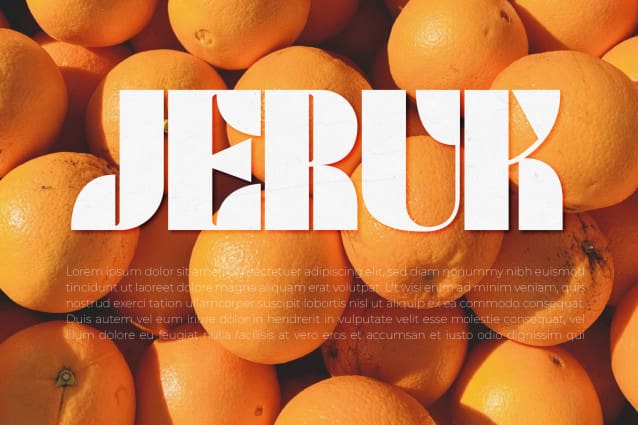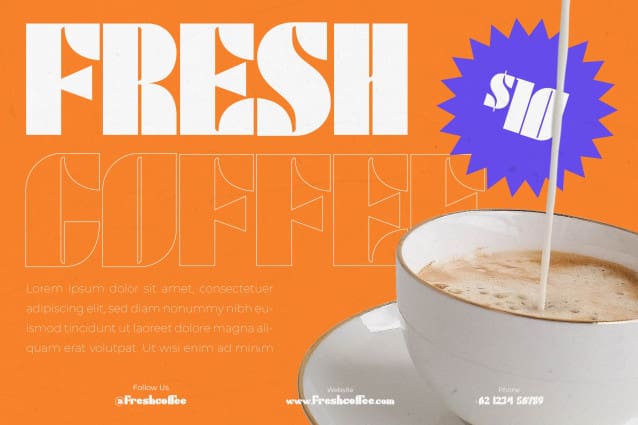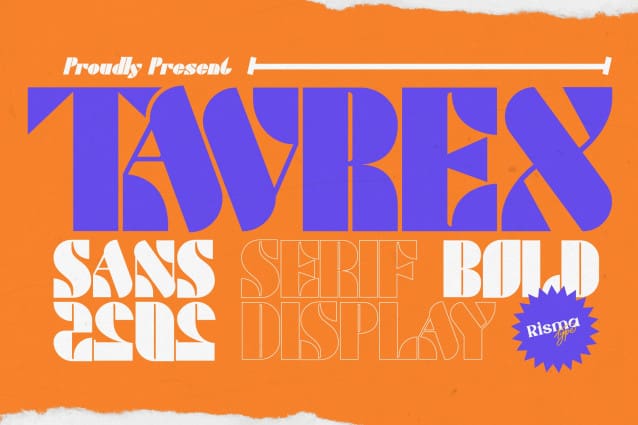
Tavrex Display Font
Tavrex Display Font is a sans serif bold display font designed to convey confidence and contemporary style. With its robust forms and clean structure, this font is perfect for making an impact in design projects that require a bold and modern aesthetic.